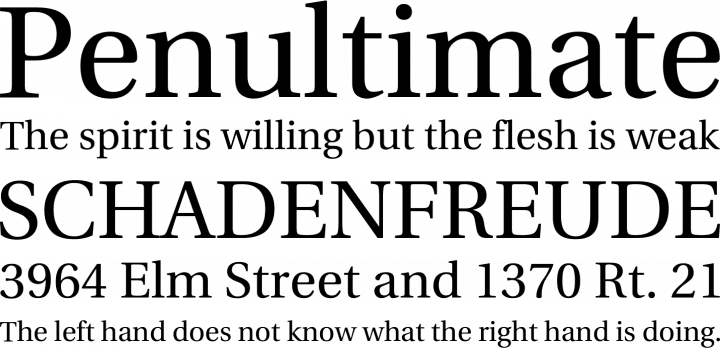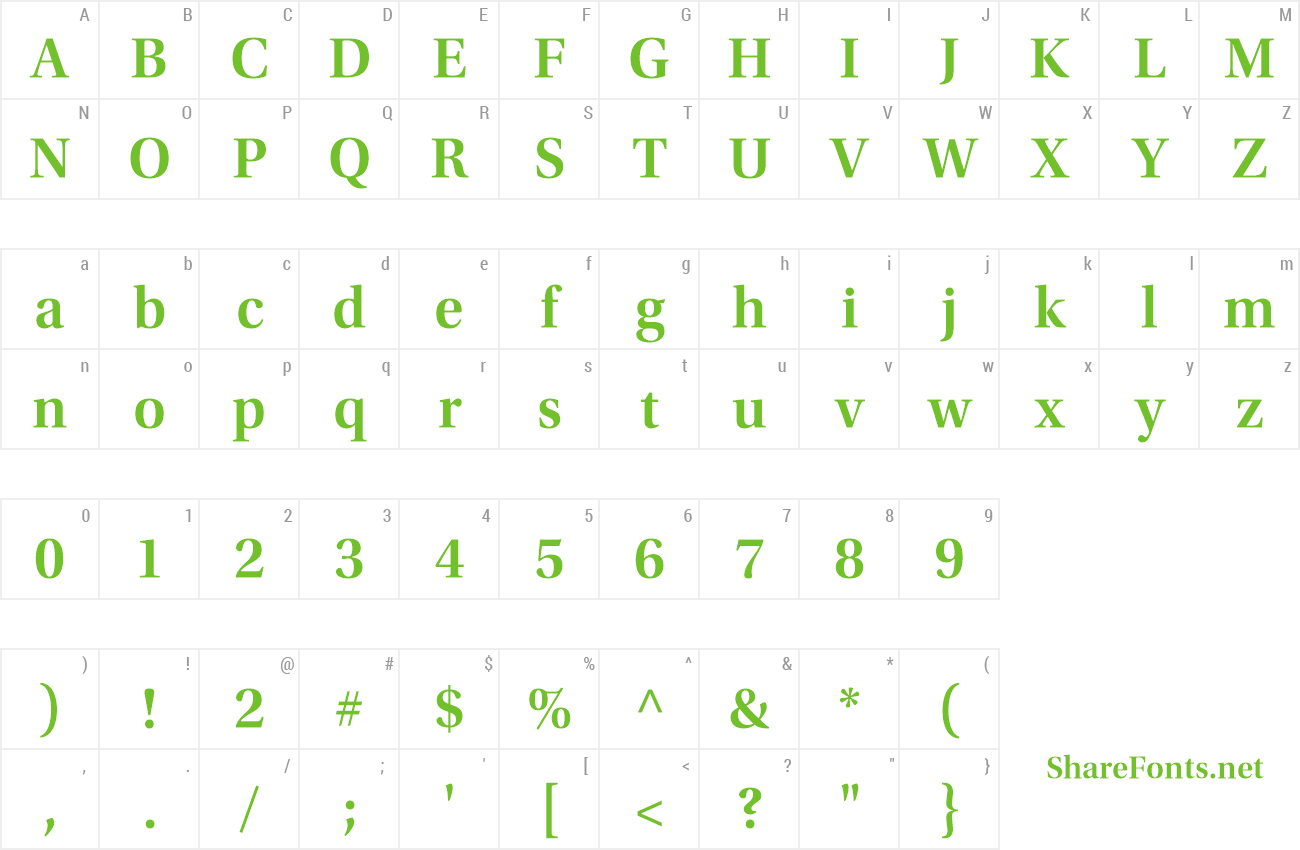
Utopia font family free download. The utopia typeface combines the pronounced stroke contrast and the vertical. License utopia is either a registered trademark or a. Utopia regular viewed 43998 times so far.
Download utopia regular font free in ttf format for windows and mac. The utopia font family is an adobe originals didone serif typeface that was designed by adobe systems employee robert slimbach in 1989. Enter you text or numbers into a panel below.
Test utopia std font family now use this extremely handy tool to test the font appearance for free. Download utopia std font for pcmac for free take a test drive and see the entire character set. It combines the vertical stress and pronounced stroke contrast of eighteenth century transitional types like baskerville and walbaum with contemporary innovations in character shapes and stroke details.